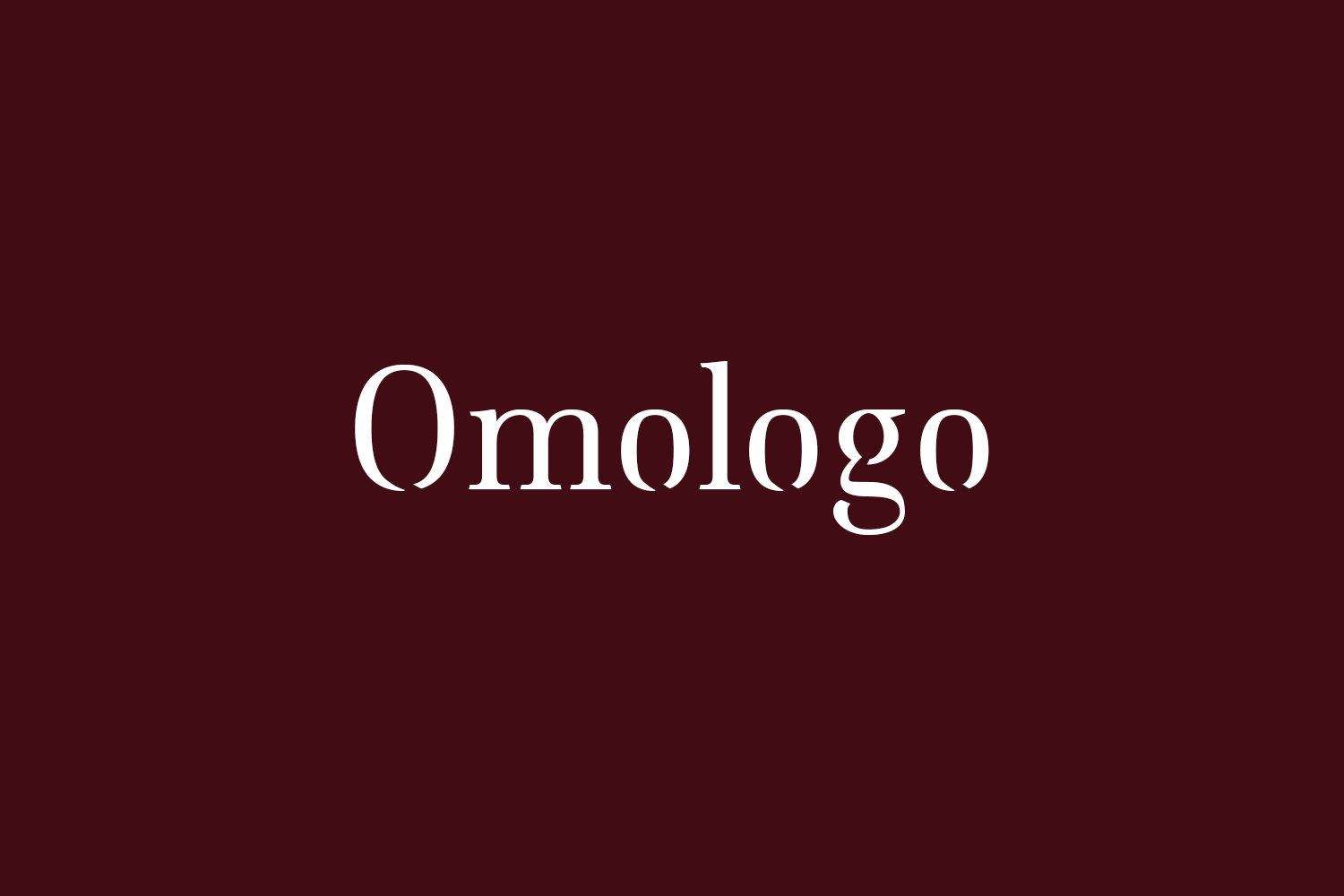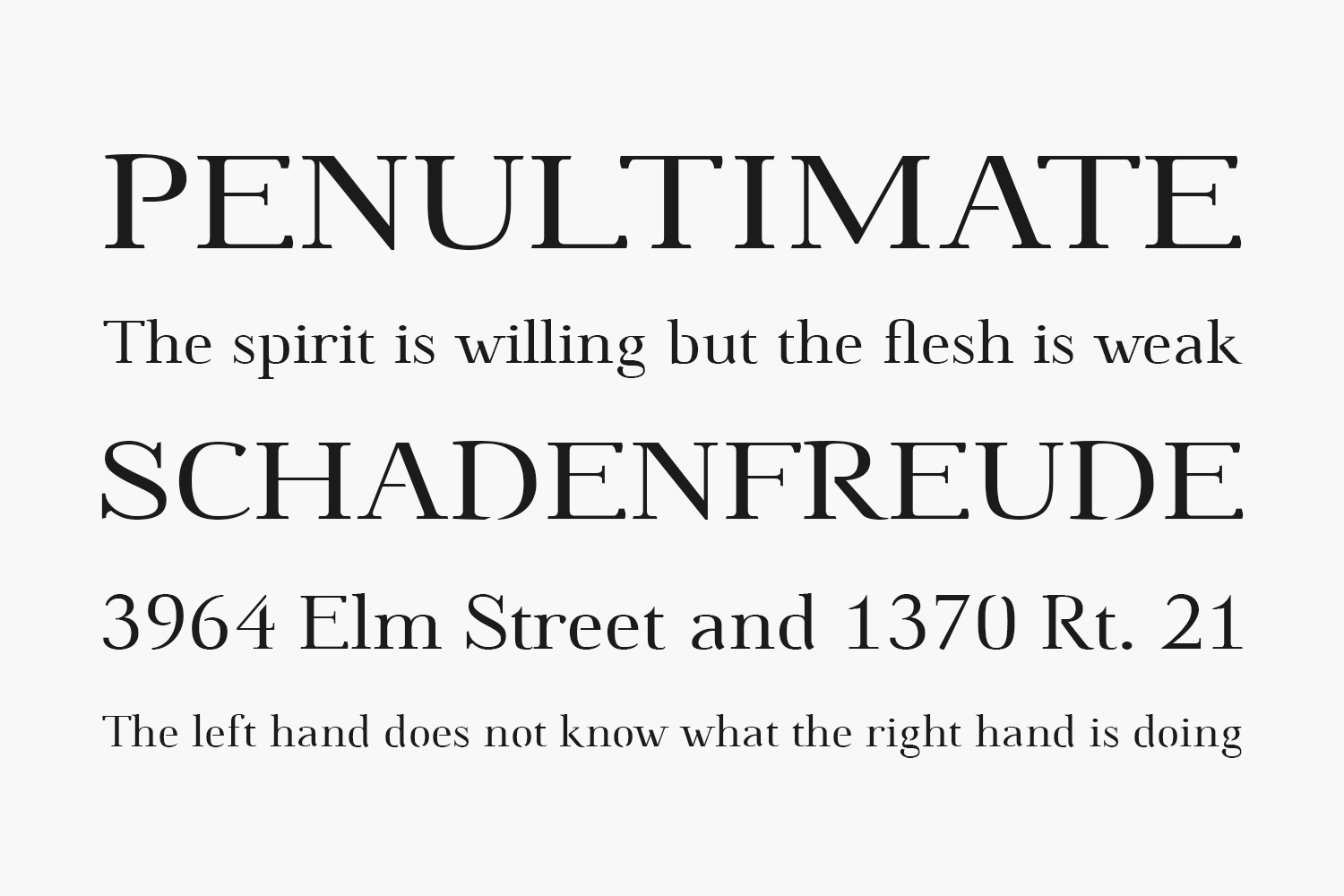
Omologo Free Font Family is a brand new Serif Semi Stencil font family based on “old style” typography, translated in the modern era with Unconventional number of Ligature. A mix of geometric forms, antique ligature, and obsolete (or forget?) glyphs. Omologo Free Font Family is incredibly useful in most creative fields like magazines, posters, books, composition and it’s a great ingredient to have in every kitchen.